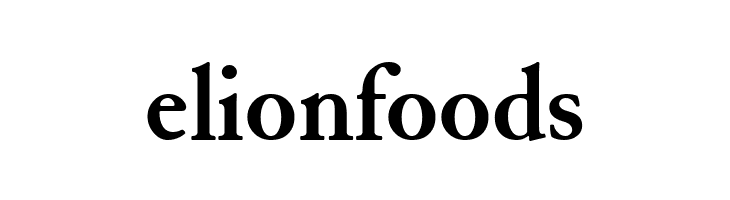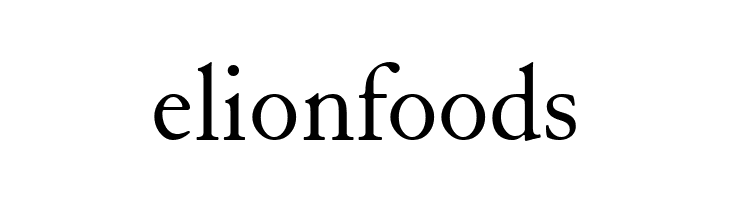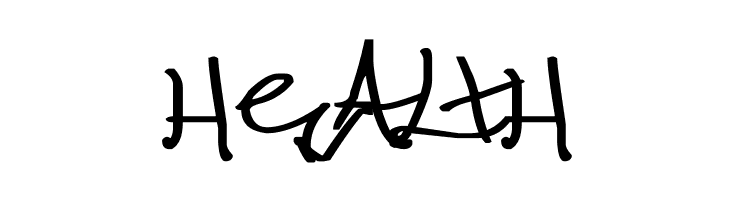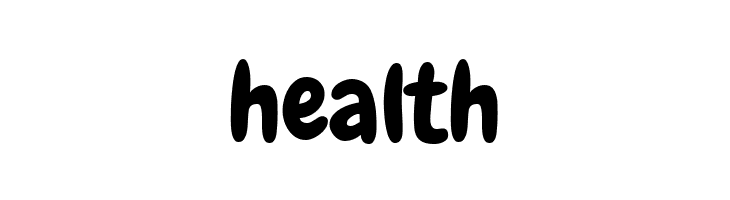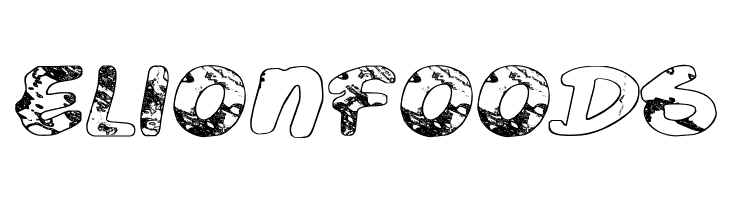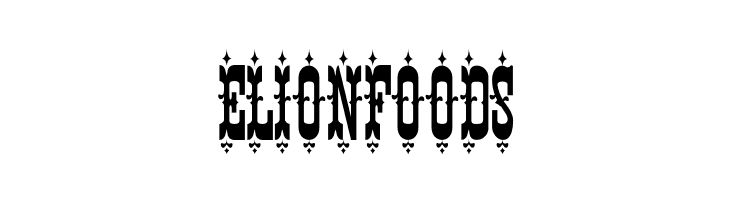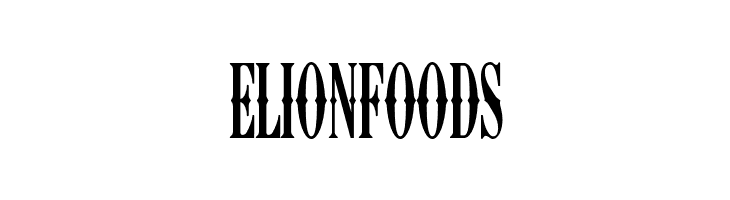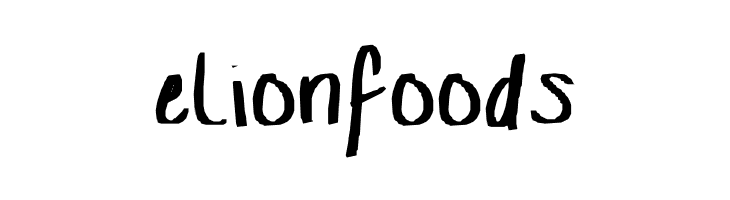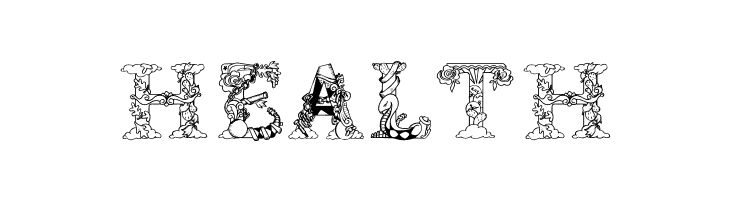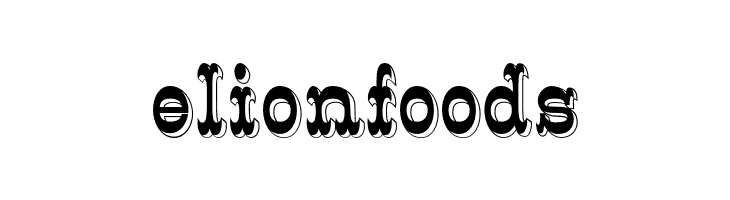
A modern sans-serif font with clean lines and balanced proportions.
A modern, light sans-serif font with clean lines and balanced proportions.
A modern sans-serif font with a clean, balanced design and versatile character set.
A classic serif font with elegant proportions and sharp serifs.
A classic serif font with elegant and refined characteristics.
A bold, classic serif font with strong strokes and refined elegance.
A bold, italicized serif font with a classic and elegant style.
An elegant and classic italic serif font with refined strokes and subtle serifs.
A modern, bold italic font with medium contrast and dynamic slant.
). ) A modern, rounded sans-serif font with excellent readability and geometric influence.
A sleek, modern italic font with a dynamic and elegant appearance.
). ) A modern, geometric sans-serif font with rounded edges and uniform strokes.
). ) A modern, geometric font with rounded edges and consistent stroke widths.
). ) A modern, geometric sans-serif font with low contrast and high legibility.
). ) A modern, geometric sans-serif font with clean lines and uniform stroke width.
A playful, hand-drawn outlined font with a whimsical and creative style.
A playful, bold outline font with rounded edges and uniform strokes.
A casual, handwritten font with a playful and informal style.
A playful, textured font with a hand-drawn, bold style.
A bold, ornate blackletter font with a medieval aesthetic.
A playful, handwritten font with a casual and informal style.
A playful, casual handwritten font with irregular strokes and a whimsical feel.
A casual, playful handwritten font with a dynamic and lively feel.
Bold, condensed serif font with strong, elegant letterforms.
A bold, condensed font with a vintage style and tight character spacing.
A bold, decorative font with intricate detailing and a playful style.
A bold, decorative font with a playful, shadowed style.
A bold, decorative font with vintage, Western-themed embellishments.